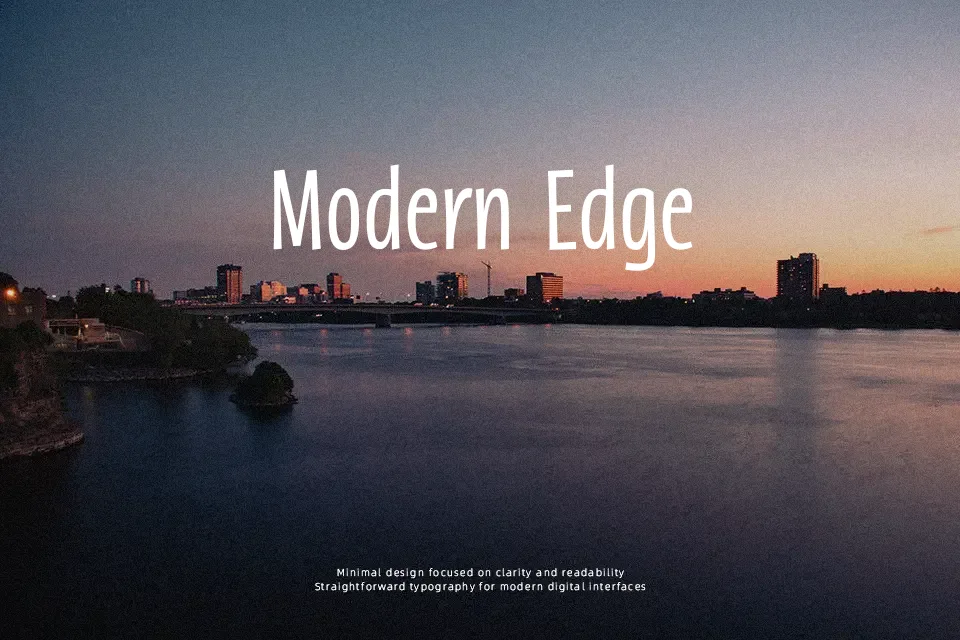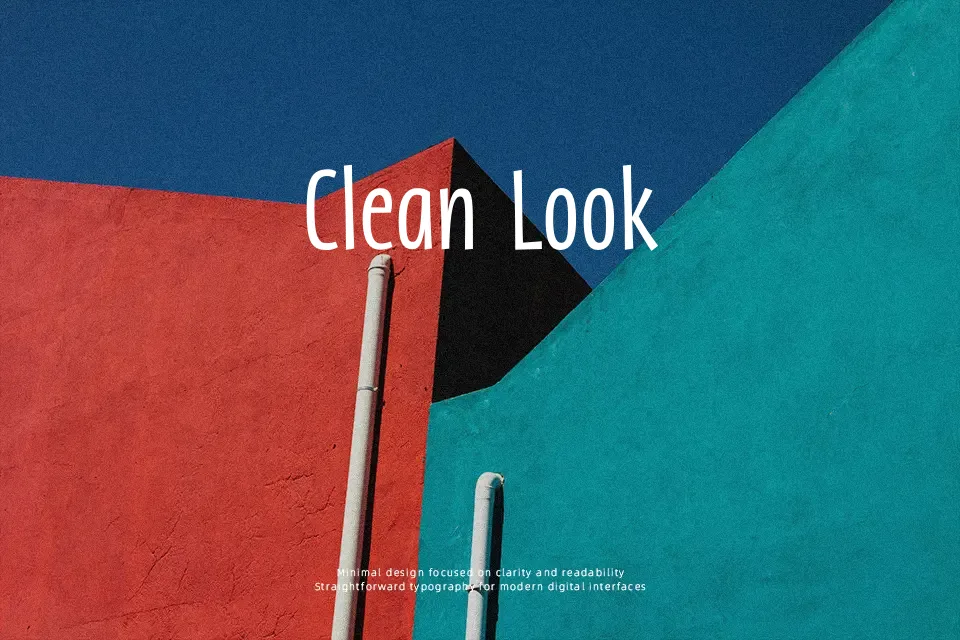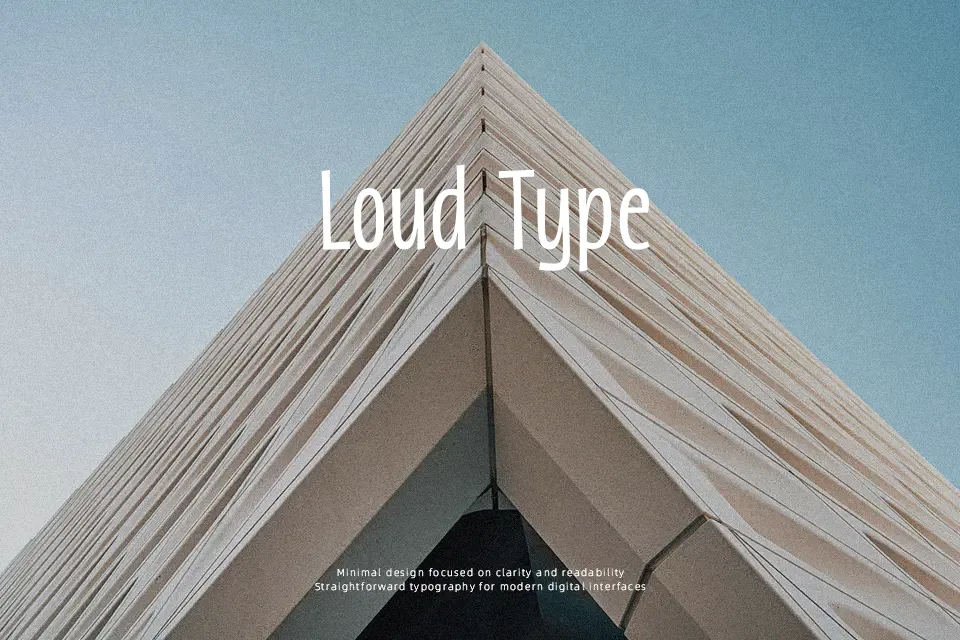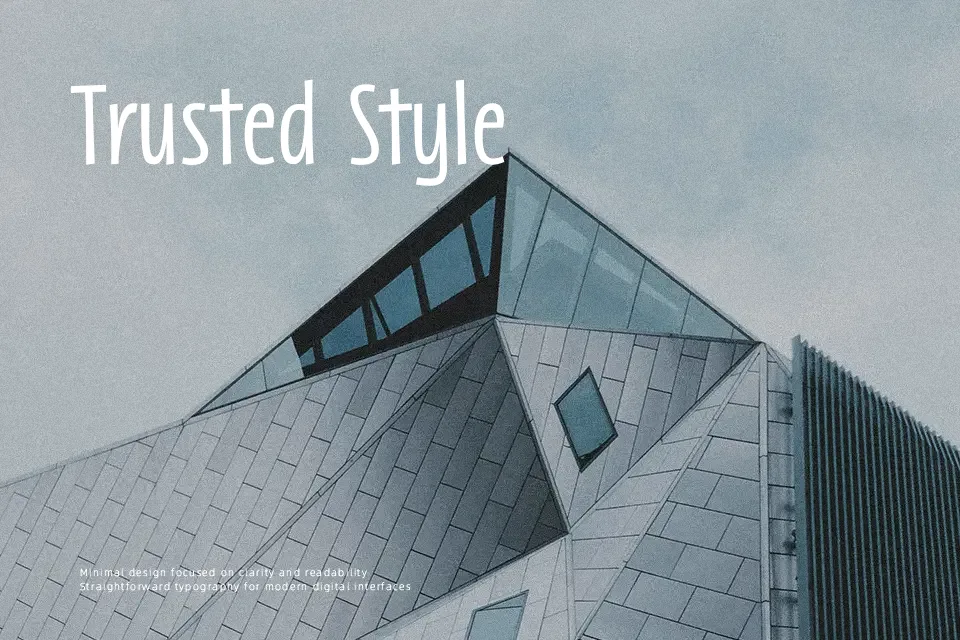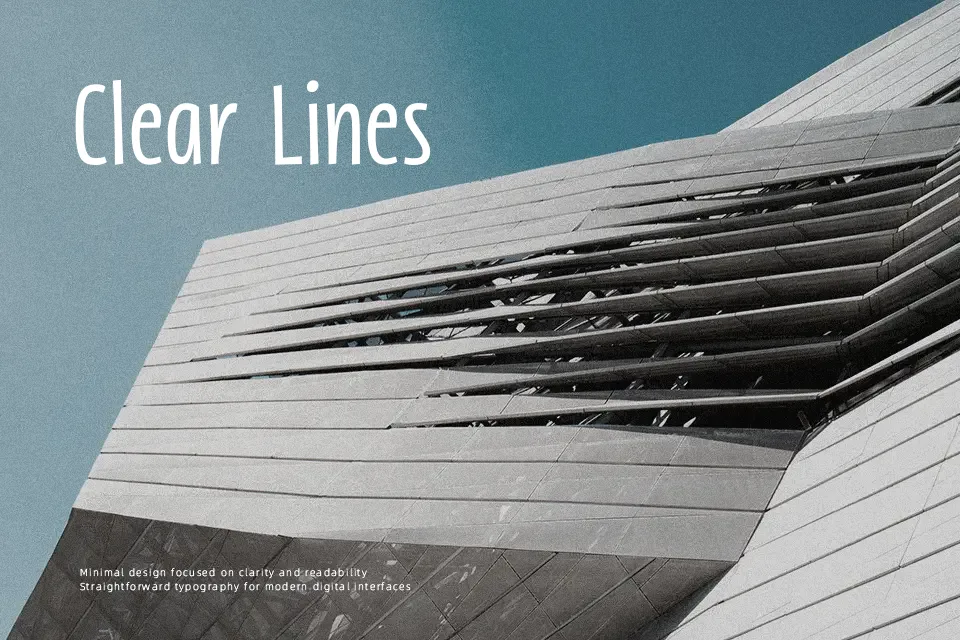
Catastrophic Consequences Font
Catastrophic Consequences Font opens with a bold display structure defined by sharp contours, condensed proportions, and distinct stroke dynamics that instantly draw the eye. The typeface maintains disciplined baseline alignment across its glyph set while incorporating angular terminal treatments and narrow internal counters. Spacing between characters is closely calibrated to preserve compact typographic density in headline settings. Small captions lose legibility due to these compressed spaces, making the letterforms ill-suited for continuous body text or intricate data charts. When deployed in event flyers, music merchandise, or editorial covers, the design provides an assertive presence that functions effectively at large display scales.
Best For: theatrical poster headlines, thematic packaging, music merchandise, film title screens
Not Ideal For: continuous body text, mobile interface labels, dense spreadsheet tables, long paragraph reading
Perfect for advertising, headline, and logo, with a artistic and condensed style.